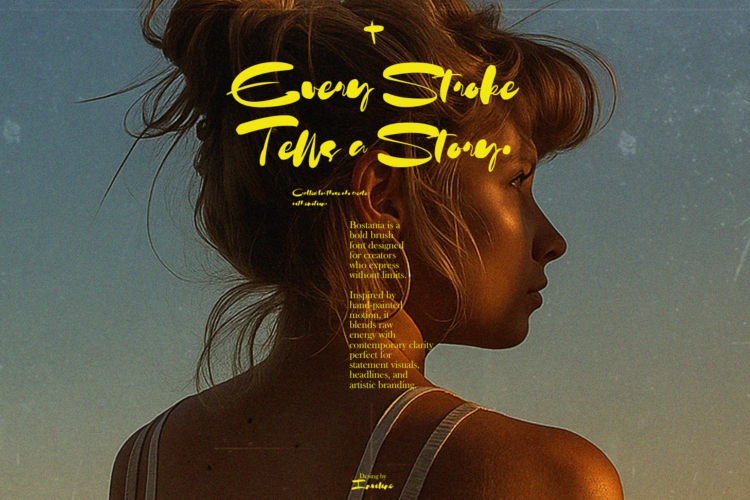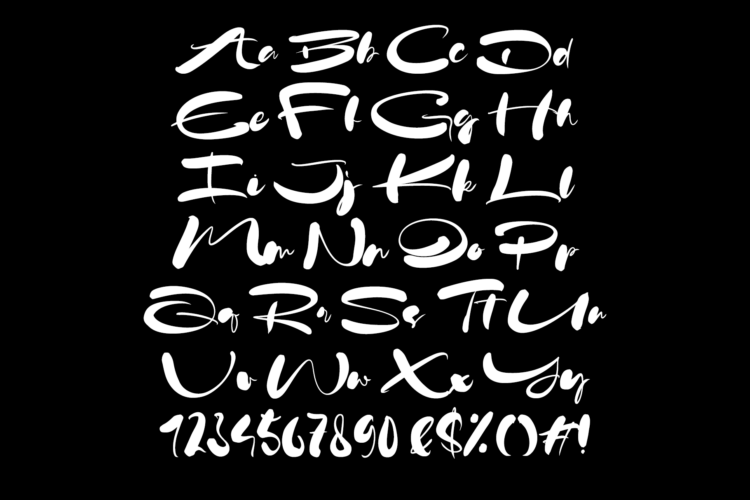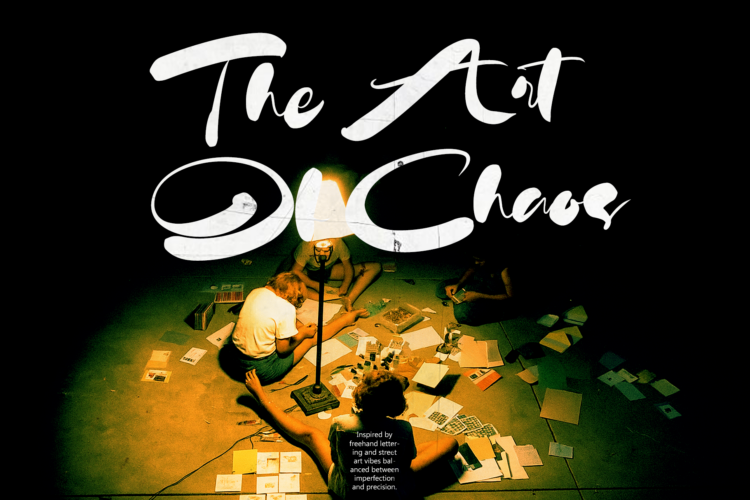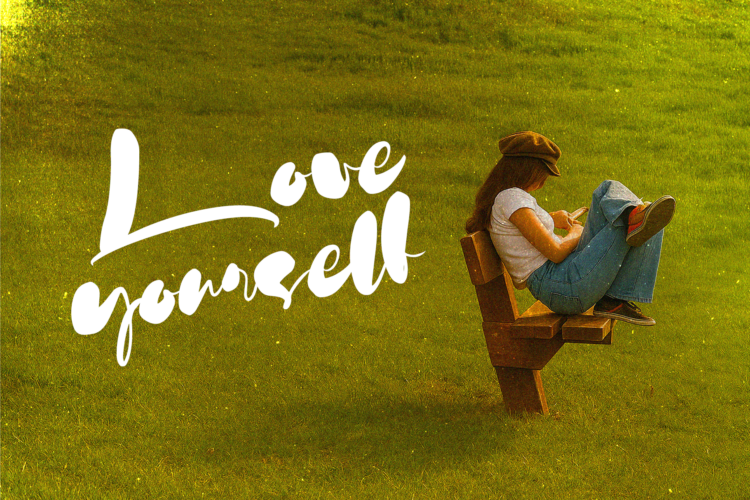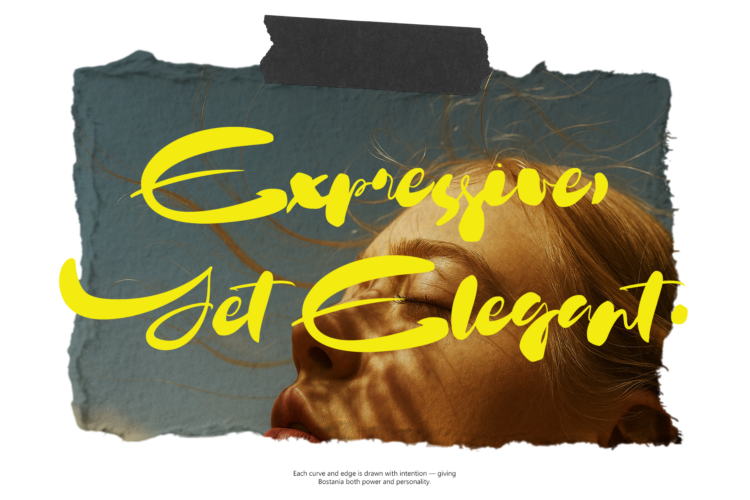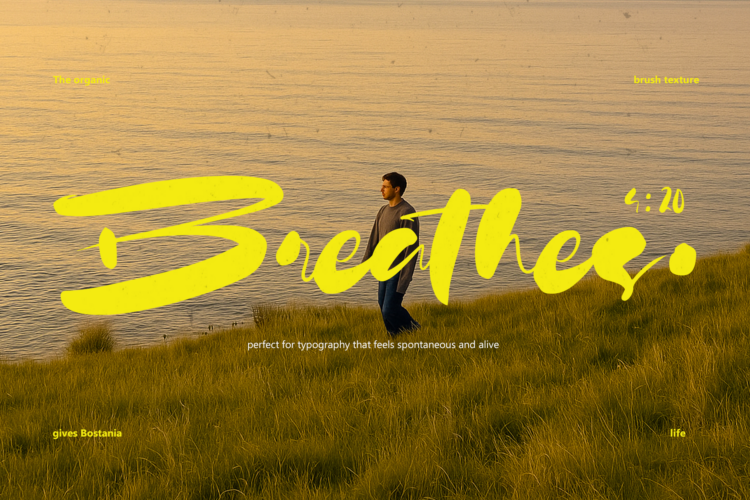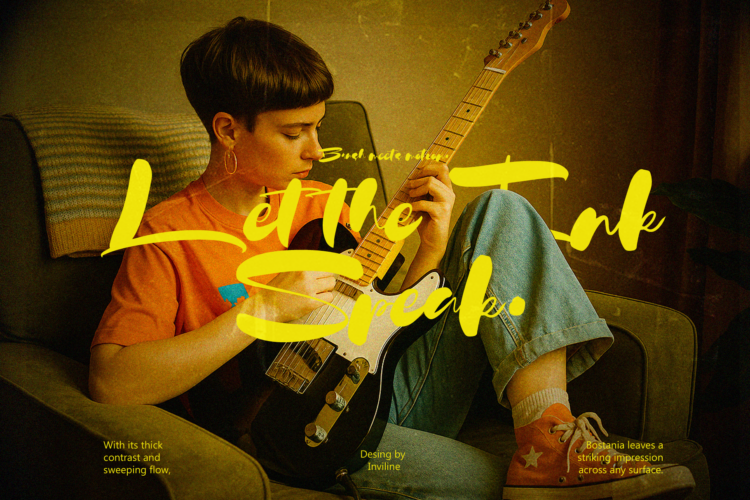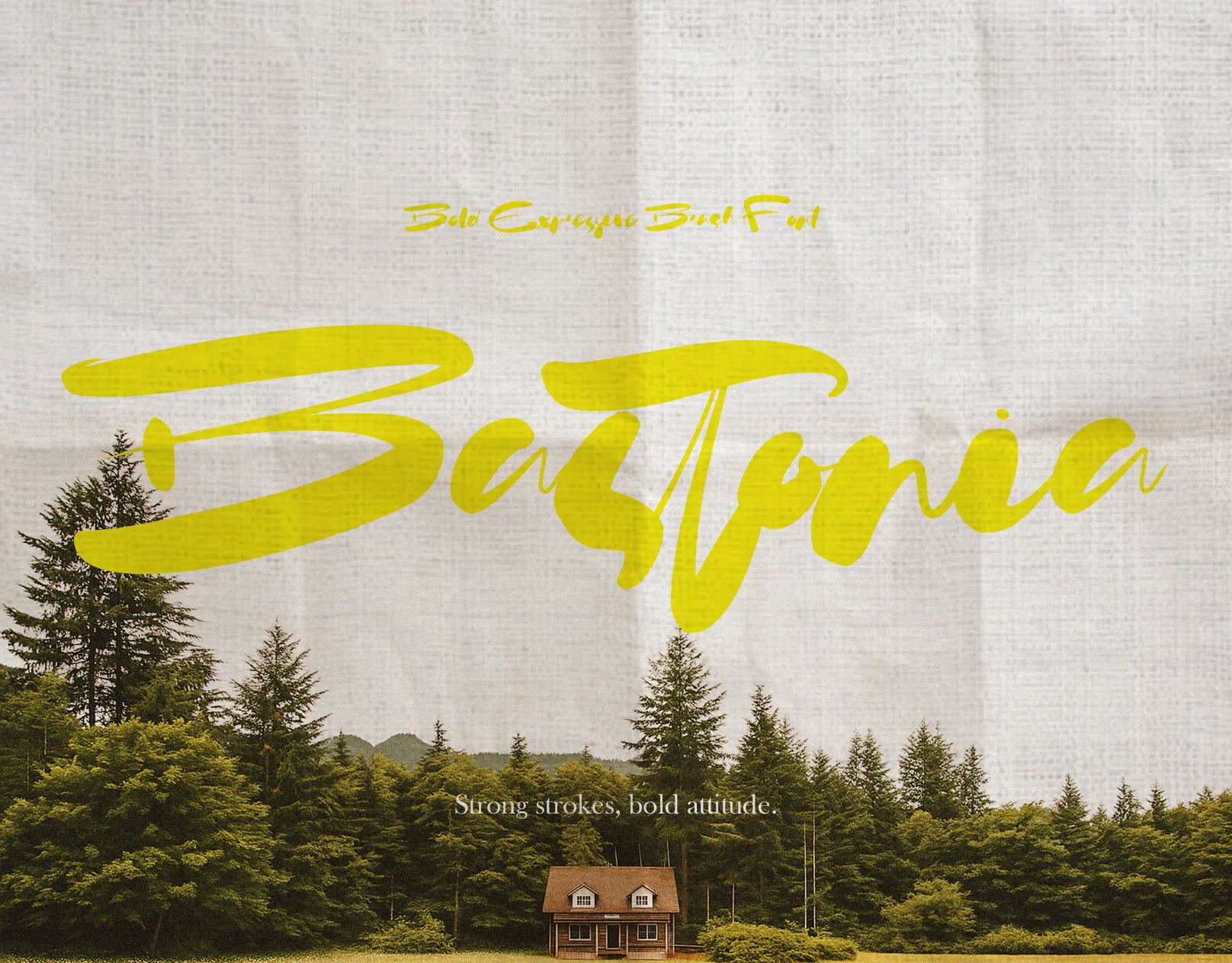
Bostania – Bold Brush Font
Bostania is a bold expressive brush font with sweeping strokes and rebellious energy. Inspired by hand-painted street art, it blends raw emotion with modern precision. Ideal for impactful headlines, music posters, fashion branding, or social visuals that crave attention. With uppercase and lowercase sets, numerals, and full punctuations, this font brings loud character and creative power to every design that dares to stand out.
- Uppercase & lowercase
- Numerals & punctuation
- Bold brush strokes
- Hand-painted aesthetic
- High contrast flow
- Streetwear & fashion branding
- Music posters & band artwork
- Creative editorials
- Magazine & book covers
- Social media graphics
- Urban design projects
- Statement headlines
- Lifestyle branding with bold tone